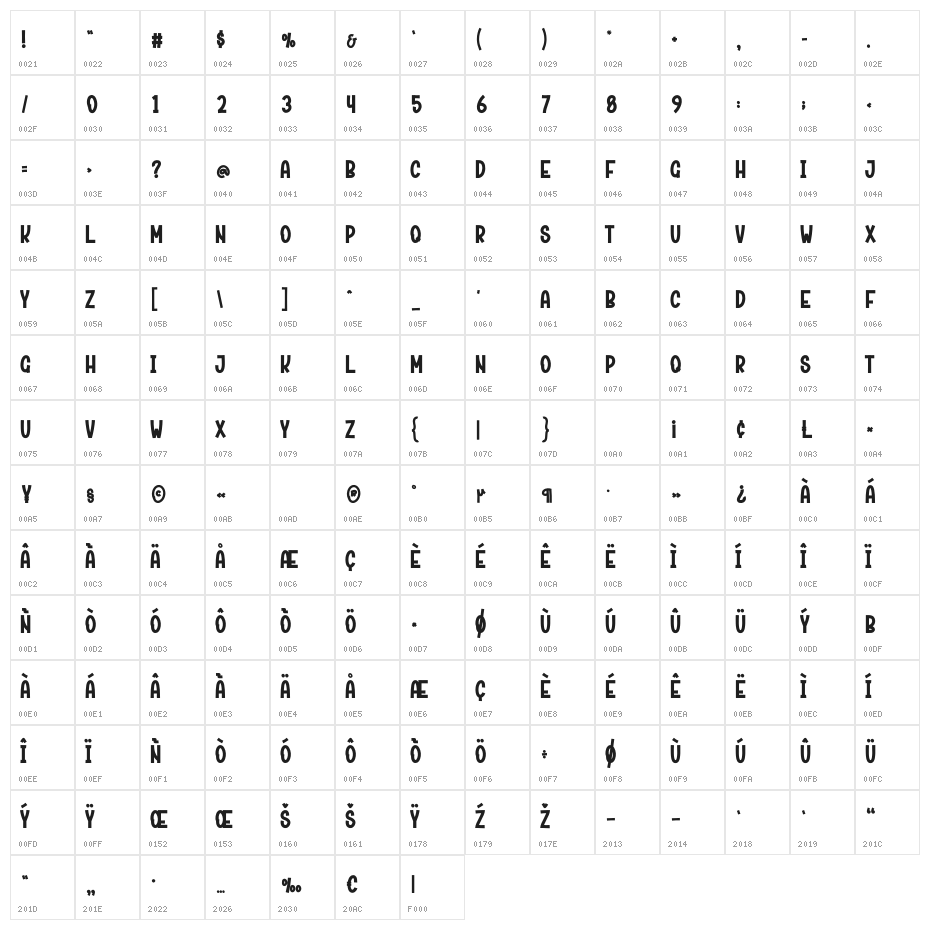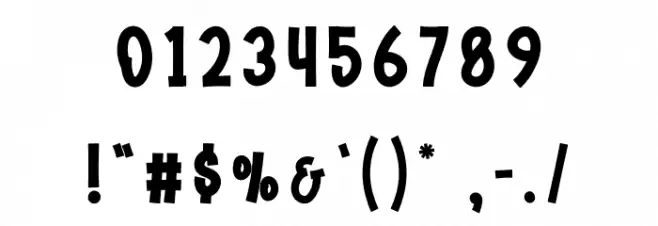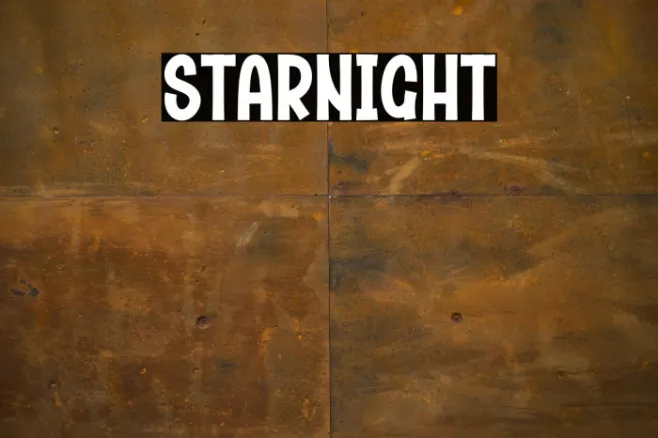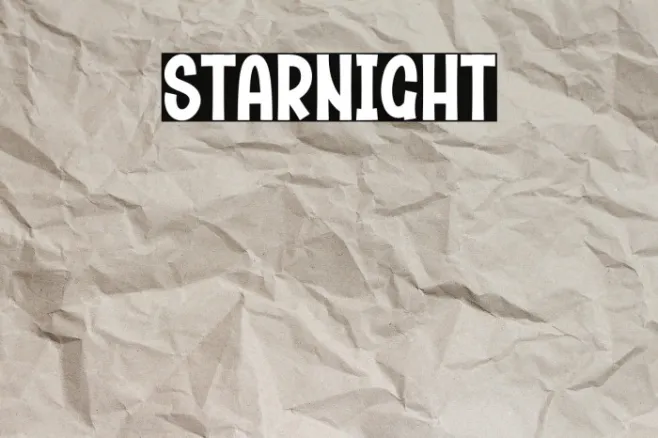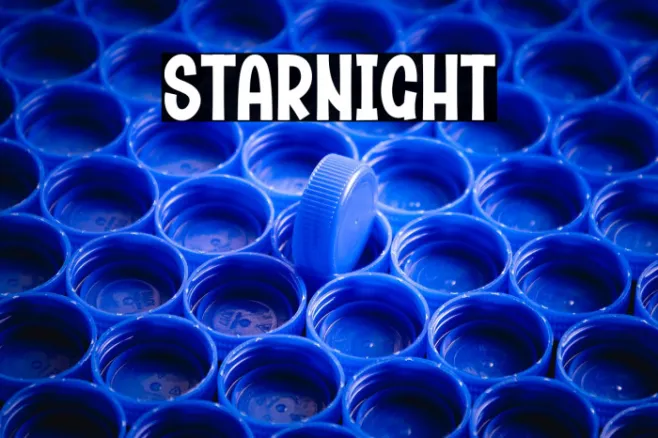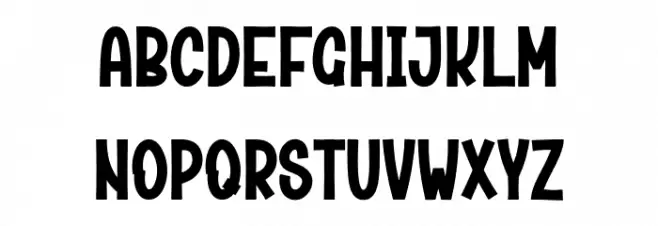
Starnight Font
Starnight Description
This font features a bold and playful design with a hand-drawn aesthetic. The characters are slightly irregular, giving it a whimsical and informal appearance. The uppercase and lowercase letters maintain a consistent style, with rounded edges and a slightly condensed form. The numbers and special characters follow the same playful theme, making the font suitable for creative and fun projects. The overall look is engaging and eye-catching, perfect for drawing attention.
| Proposed Projects | Ideal for children's books, playful branding, event posters, and creative social media graphics. |